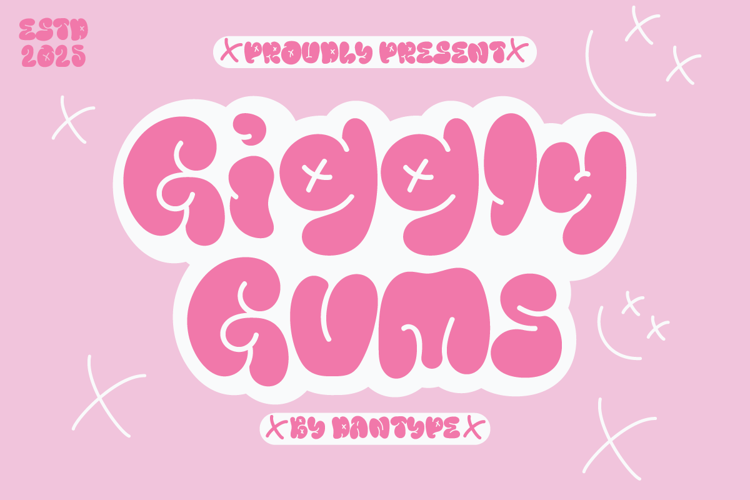
Giggly Gums Font
Giggly Gums Display Font - This font would be perfect for photography, watermarks, social media posts, advertisements, logos & branding, invitations, product design, labels, stationery, product packaging, special events, and other projects. This font is PUA encoded which means you can access all glyphs with ease!